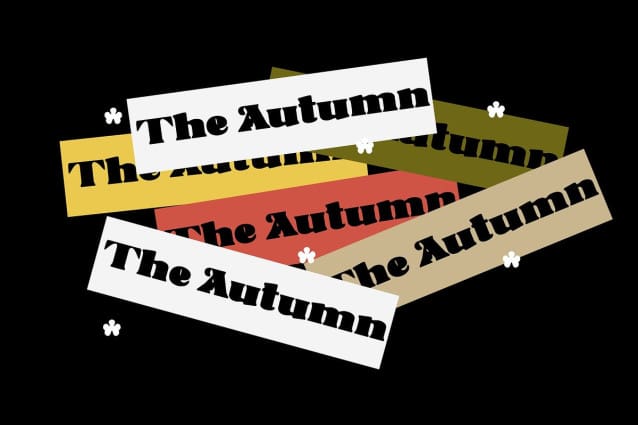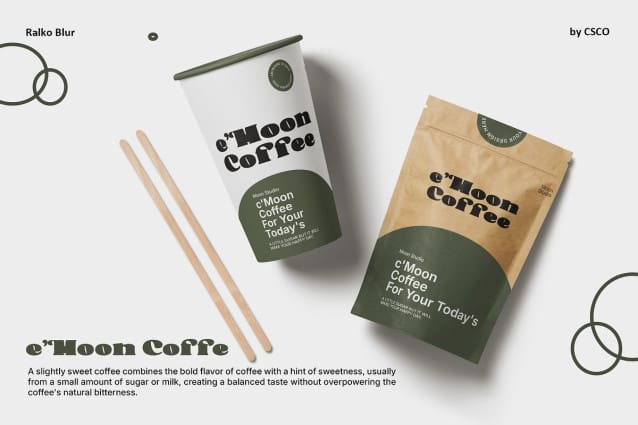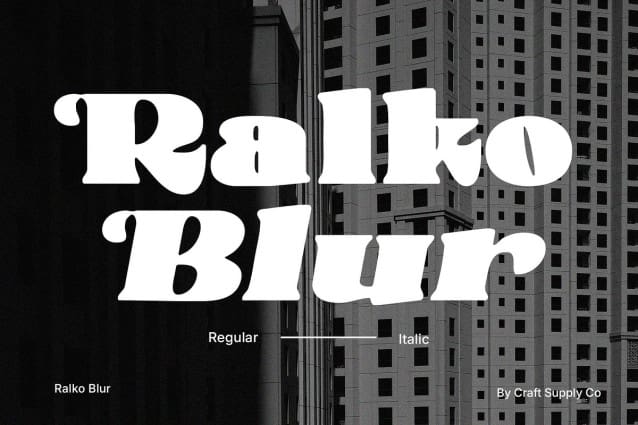
Ralko Blur Font
Ralko Blur Font is a classic serif font that features bold forms designed to convey a solid and elegant impression. The distinctive serif details enhance its character, creating a strong traditional vibe that resonates with sophistication. Its robust structure provides a sense of reliability, making it an ideal choice for projects that aim to evoke a timeless appeal.
Intriguing Contrast with Blur Effect The applied blur effect adds a unique dimension and softness to Ralko Blur, creating an intriguing contrast between thickness and delicacy. This modern touch transforms the traditional serif design, infusing it with a dynamic energy that sets it apart from standard serif fonts. The blur effect not only enhances visual interest but also adds an artistic flair, allowing the font to engage viewers on multiple levels.
Versatile for Diverse Design Applications Ralko Blur is perfect for designs looking to blend classic elements with a modern aesthetic. Whether used in posters, books, or branding materials, this font delivers striking visual appeal that captures attention. Its versatility allows it to adapt seamlessly across various applications, from elegant editorial layouts to eye-catching promotional materials. With Ralko Blur, you can create a sophisticated yet fresh atmosphere that resonates with your audience.